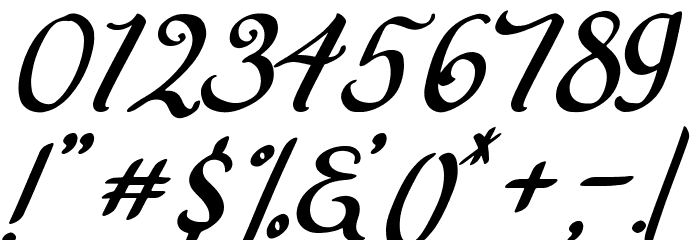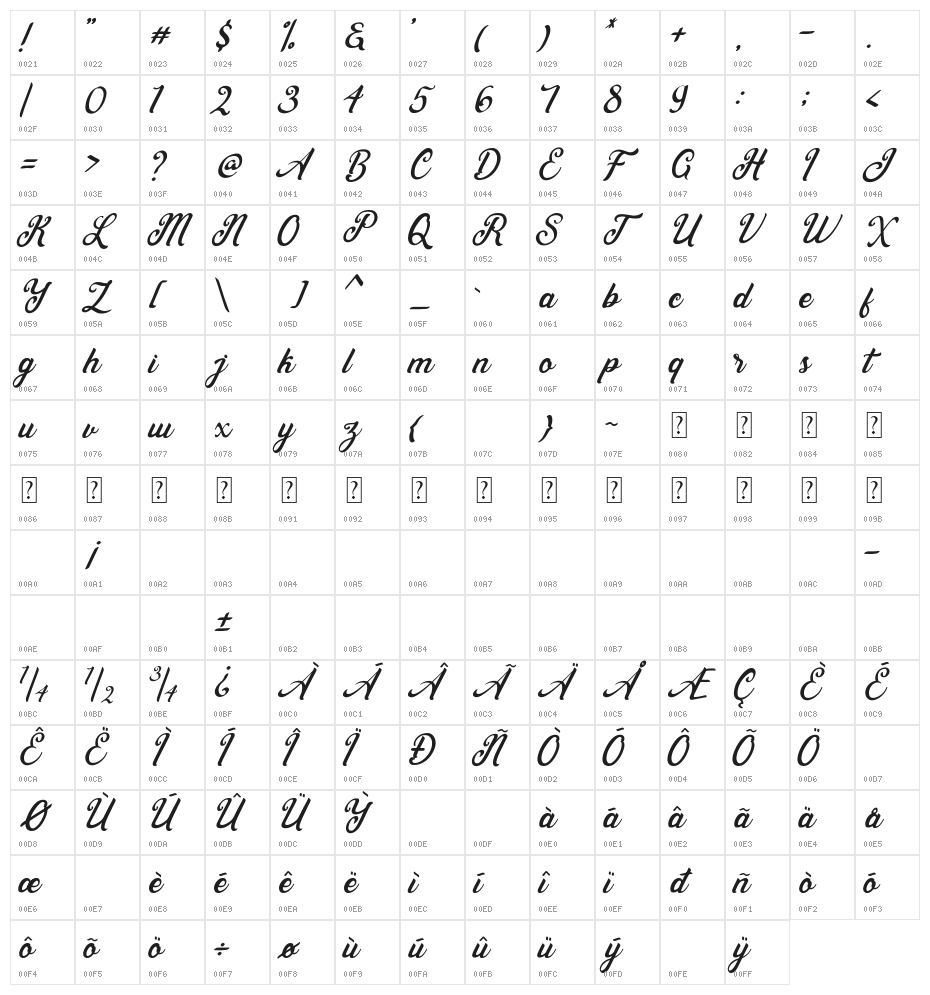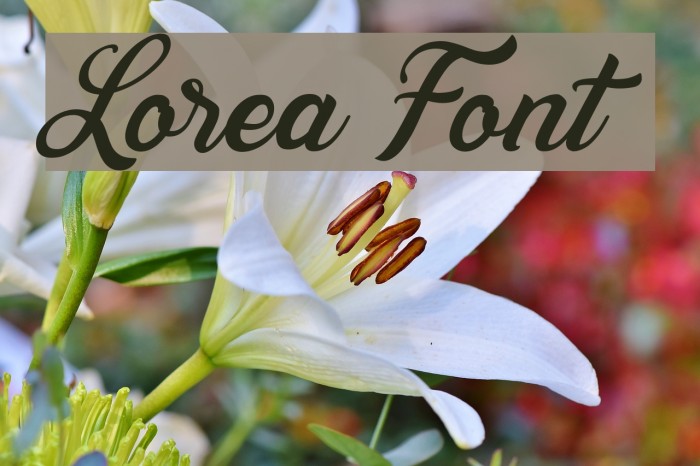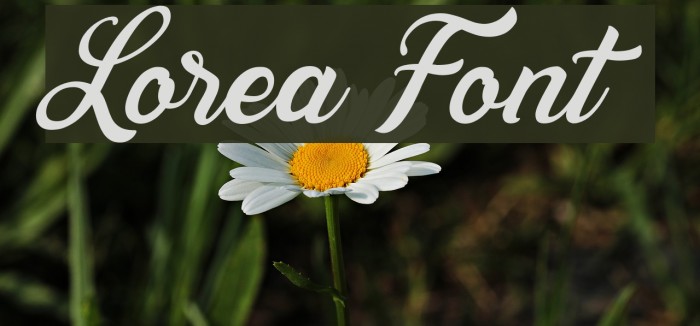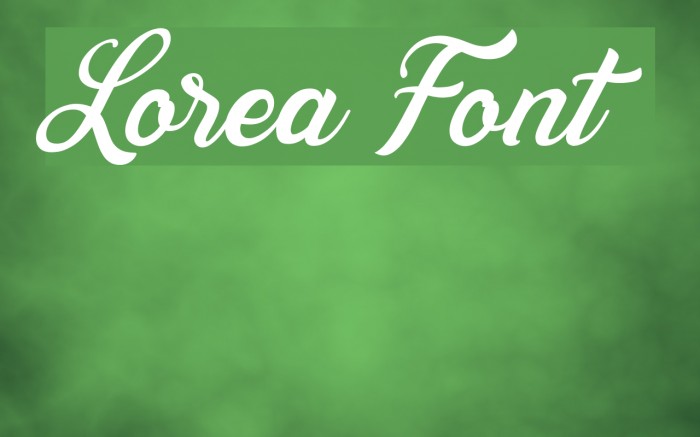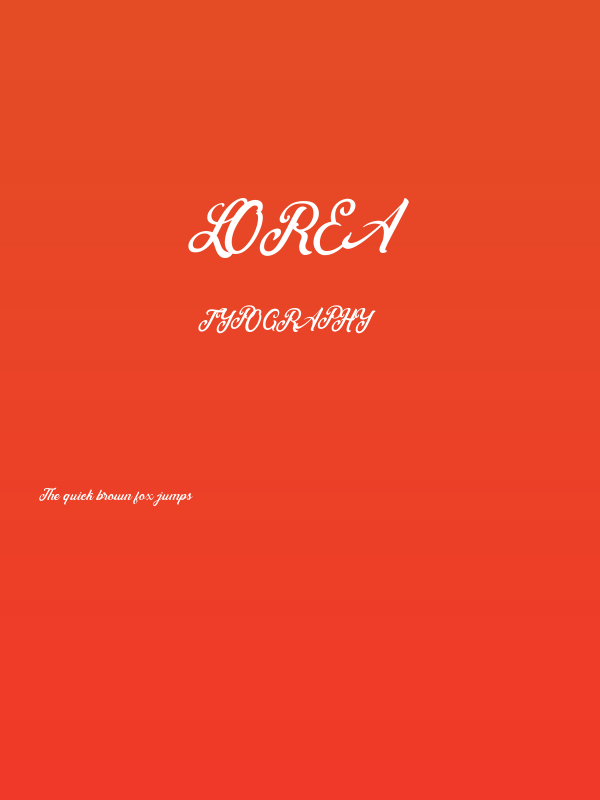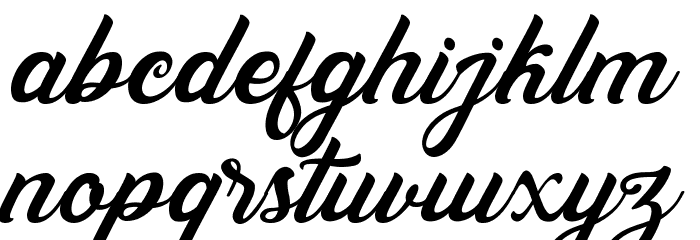
Lorea Font
Lorea Description
This font features an elegant and flowing script style, characterized by its smooth, cursive letterforms that exude a sense of sophistication and grace. The uppercase letters are bold and sweeping, with intricate loops and flourishes that add a decorative touch. The lowercase letters maintain a consistent flow, with gentle curves and connections that enhance readability while preserving the font's artistic flair. The numerals are styled to match the script's fluidity, offering a cohesive look across all characters. Special characters are thoughtfully designed to integrate seamlessly with the overall aesthetic, making this font versatile for various design needs.
Overall StyleElegant
Use CaseLogos, Invitations, Branding
Proposed ProjectsIdeal for wedding invitations, elegant branding, greeting cards, and luxury product packaging.